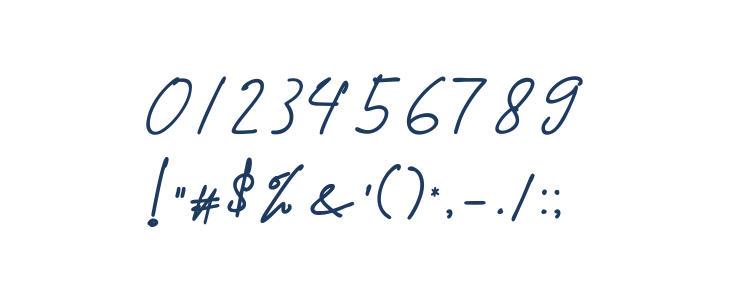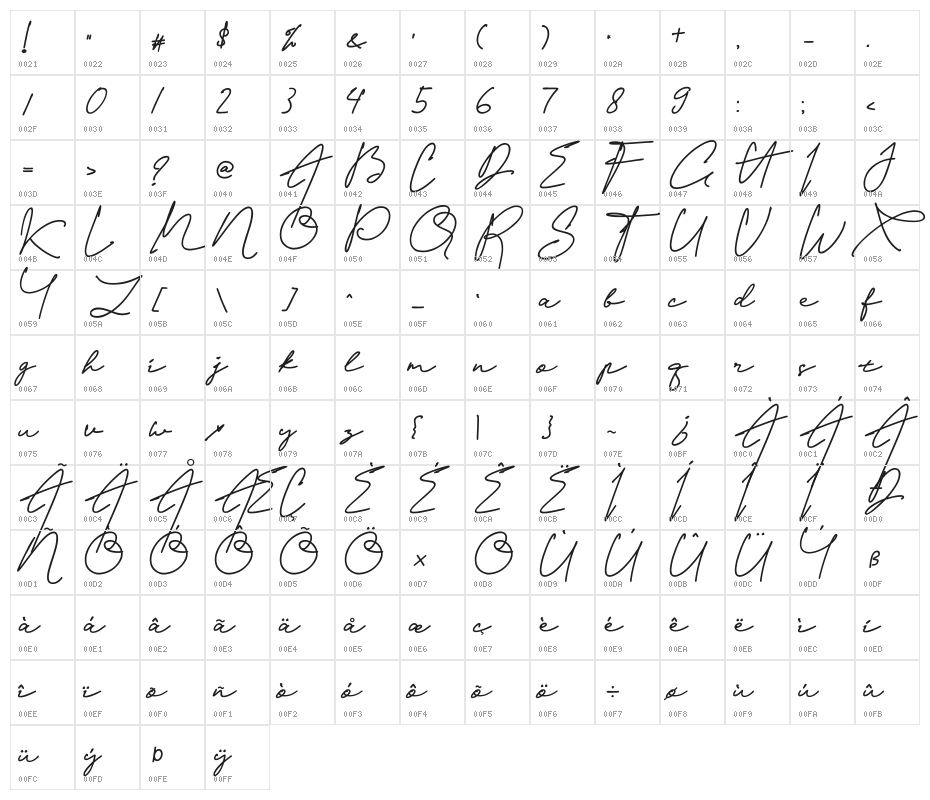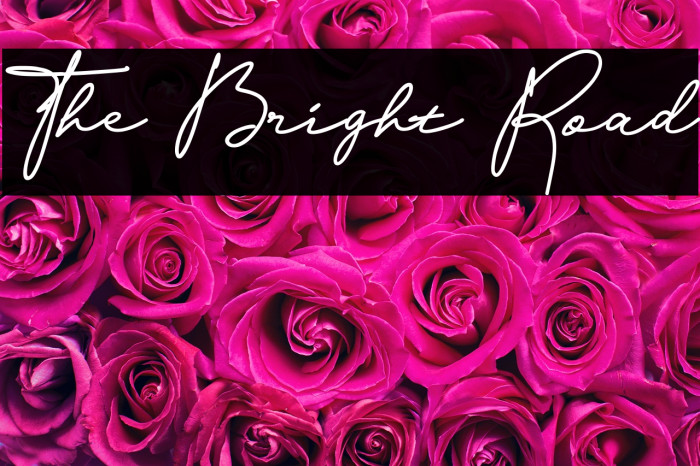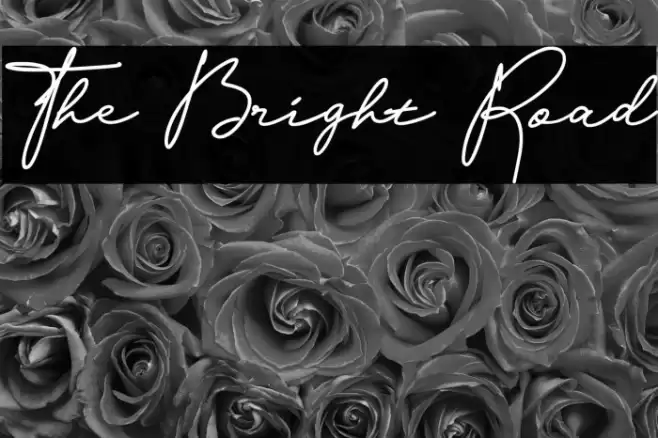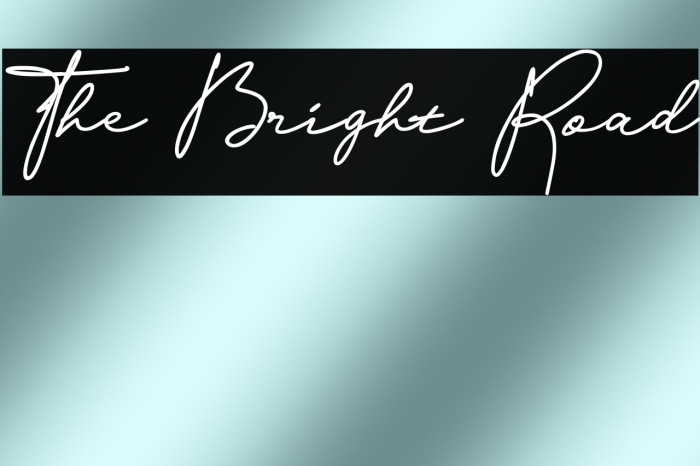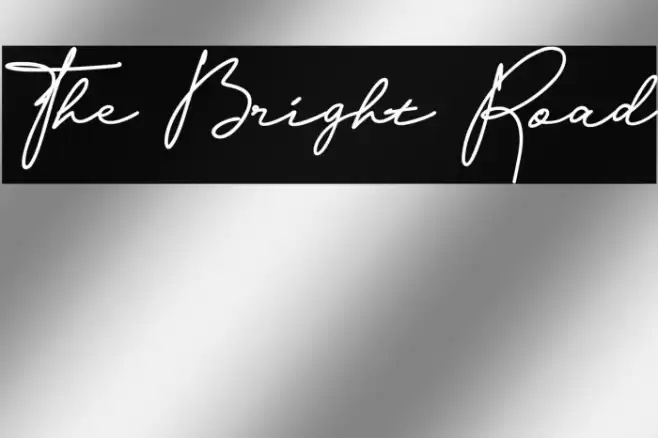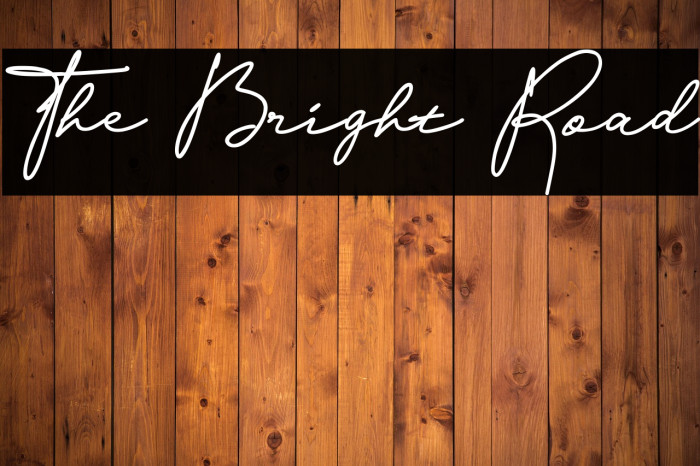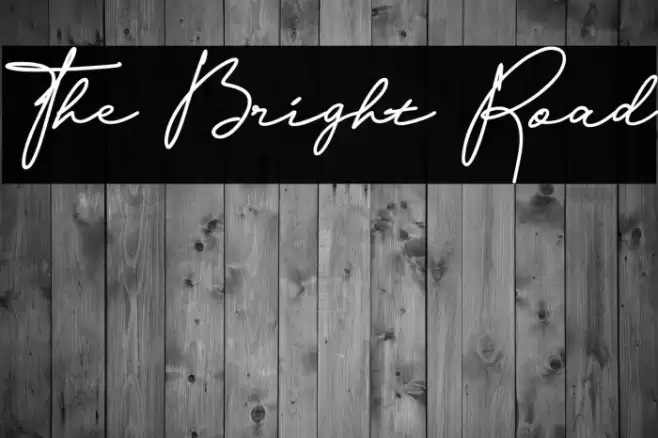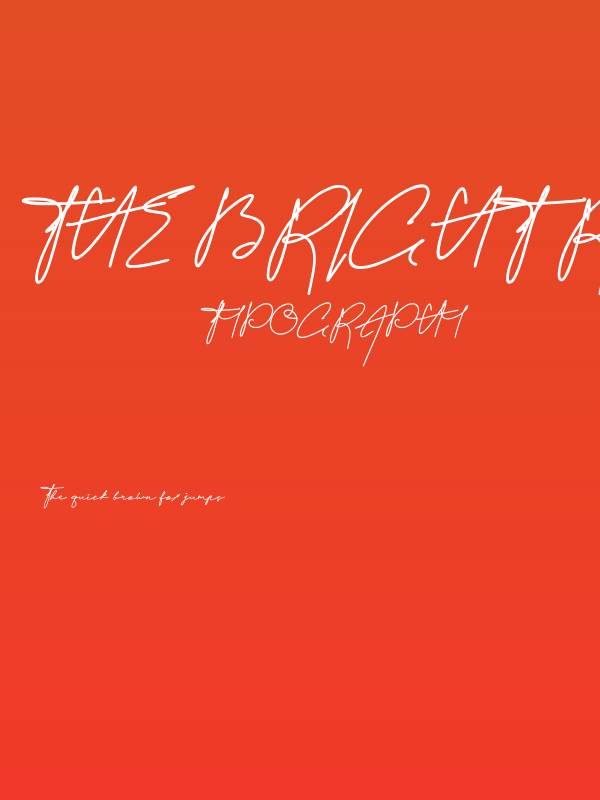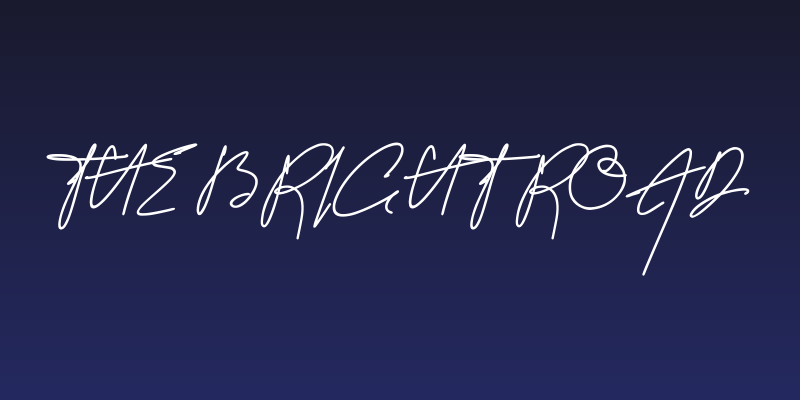
The Bright Road Font
The Bright Road Description
This font exudes a casual, handwritten style with a flowing, cursive script that mimics natural handwriting. The uppercase letters are elegantly connected, while the lowercase letters maintain a smooth, continuous flow. The numbers and special characters are crafted with the same fluidity, ensuring consistency throughout. The strokes are moderately thick, providing a balanced contrast that enhances readability without sacrificing the aesthetic appeal. This font is perfect for projects that require a personal touch, such as invitations, greeting cards, or branding materials that aim to convey warmth and approachability.
| Proposed Projects | Ideal for invitations, greeting cards, personal branding, and any project needing a warm, personal touch. |